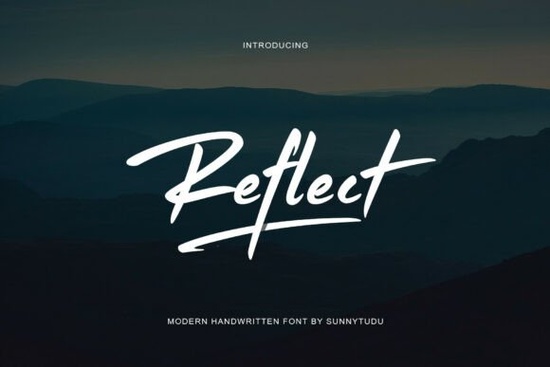
When you're looking for a font that captures the raw, dynamic energy of a hand-painted signature, Reflect Handwritten Font by Sunnytudu is an excellent choice. This modern handwritten font features fast, sweeping strokes and sharp, tapering terminals, giving it a sense of motion and urban sophistication. Its slightly slanted rhythm and "dry brush" aesthetic make it perfect for brands that want to convey edge, confidence, and a personal, human touch.
Why Choose Reflect Handwritten Font?
Reflect is not just another handwritten font; it's designed to stand out with its unique style. The fast, sweeping strokes and sharp, tapering terminals give it a distinctive look that can add a lot of character to your designs. Whether you're working on streetwear branding, photography watermarks, cinematic titles, or high-energy sports marketing, Reflect can be a versatile addition to your toolkit.
How Can You Use Reflect in Your Designs?
Here are some practical ways to incorporate Reflect into your creative projects:
- Streetwear Branding: Add a bold, edgy feel to your apparel designs with Reflect. It works well for logos, taglines, and even product descriptions.
- Photography Watermarks: Use Reflect to create stylish and professional watermarks that protect your images without compromising their aesthetic appeal.
- Cinematic Titles: Give your video and film projects a dynamic, contemporary look with Reflect. It's perfect for opening and closing credits, as well as title sequences.
- High-Energy Sports Marketing: Reflect's energetic and confident style makes it ideal for sports-related promotional materials, such as posters, banners, and social media graphics.
What Makes Reflect Stand Out?
The key to Reflect's uniqueness lies in its "dry brush" aesthetic. This gives the font a textured, almost tactile quality, making it feel more organic and less polished. The slight slant and the fluid, sweeping strokes add to its dynamic and modern appearance. These elements combined make Reflect a powerful tool for designers who want to add a personal, human touch to their work.
Comparing Reflect with Other Handwritten Fonts
While there are many handwritten fonts available, Reflect stands out with its specific blend of urban sophistication and raw energy. Here’s how it compares to some other popular options:
- Dellanor Script Font: This font has a more elegant and flowing style, which might be better suited for formal or traditional designs.
- Heartberry Font: Heartberry is more playful and whimsical, making it a great choice for casual and fun projects.
- Family Holiday Font: With a more relaxed and friendly vibe, Family Holiday is perfect for holiday-themed and family-oriented designs.
- Rustic Pantry Font: This font has a rustic, handcrafted feel, which is ideal for farmhouse-style and vintage designs.
- Wedding 10 Bundle Font: As the name suggests, this bundle is tailored for wedding invitations and other romantic, elegant designs.
Each of these fonts has its own unique character, but Reflect offers a distinct, modern, and energetic feel that sets it apart.
Practical Tips for Using Reflect in Your Projects
To get the most out of Reflect, here are some practical tips:
- Test Different Sizes and Colors: Experiment with different sizes and colors to see what works best for your project. Reflect can be quite versatile, so don't be afraid to try out various combinations.
- Combine with Other Fonts: Pair Reflect with simpler, more legible fonts for a balanced and visually appealing design. For example, you could use Reflect for a headline and a clean sans-serif for the body text.
- Use for Emphasis: Utilize Reflect to highlight key words or phrases in your designs. Its bold and dynamic style can draw attention and add emphasis where needed.
By following these tips, you can effectively integrate Reflect into your designs and create compelling, eye-catching visuals that resonate with your audience.